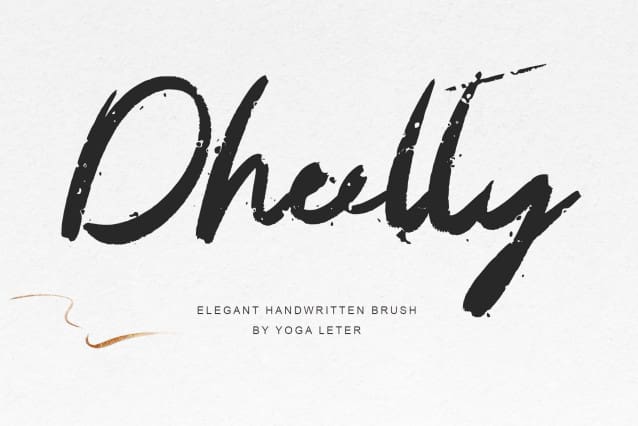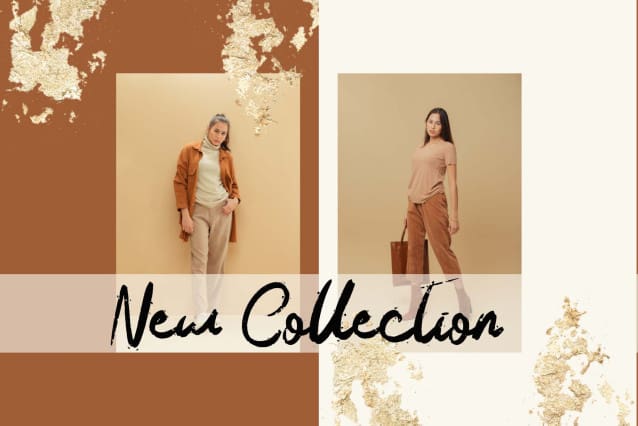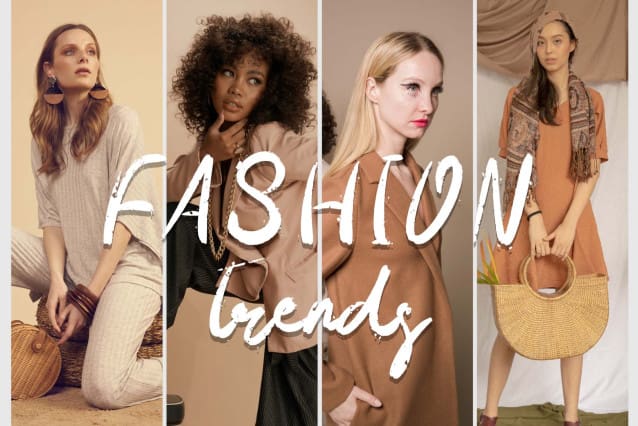
Dheelty Brush Font
Dheelty Brush Font is a unique and elegant handwritten brush font. This font is equipped with uppercase, lowercase, numerals, punctuation, ligatures, and multilingual support. Very suitable for film titles, book titles, horror films, music concerts, invitations, events, banners, posters, prints, and others.